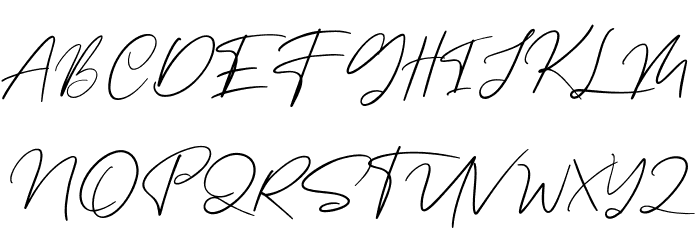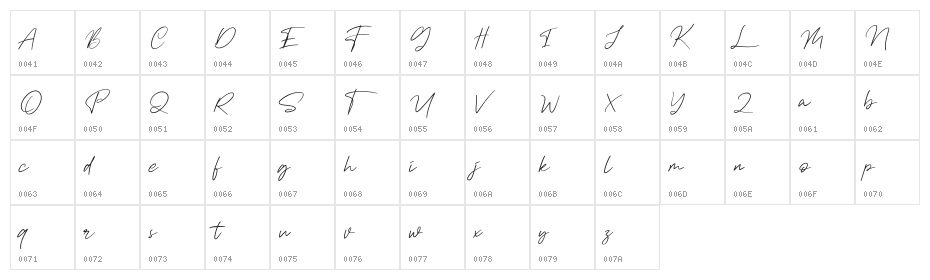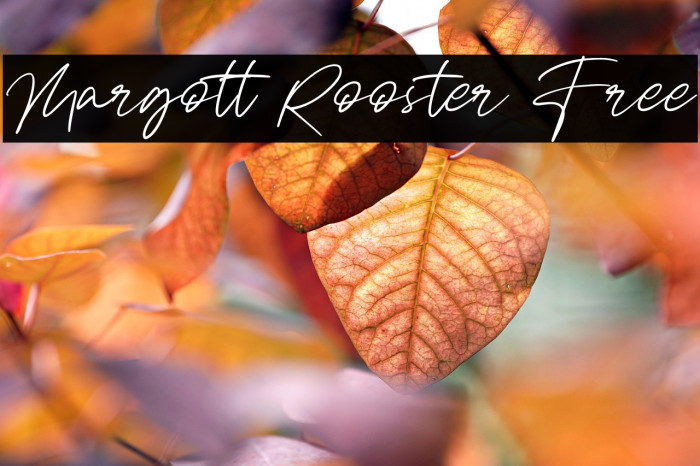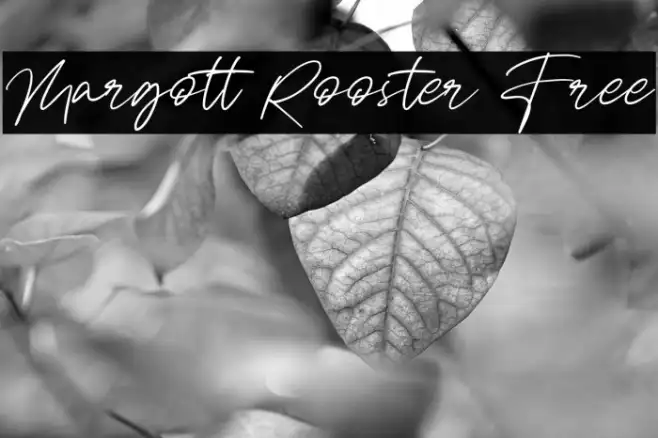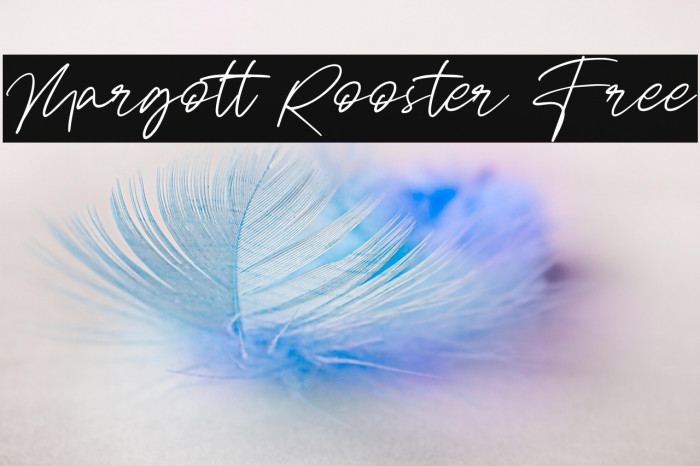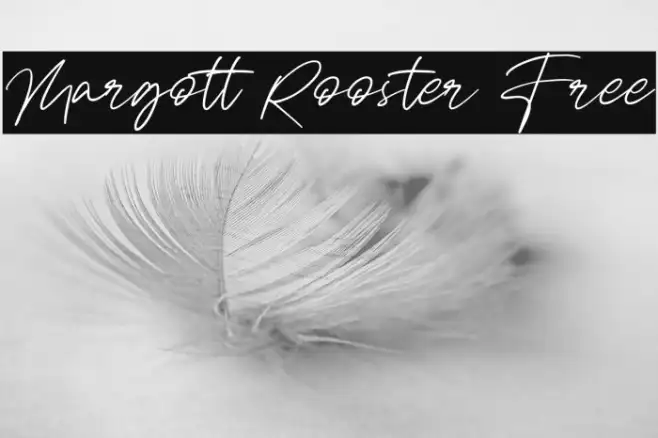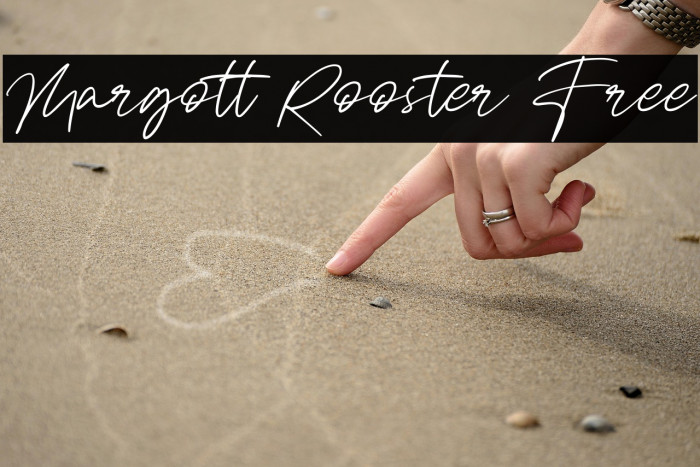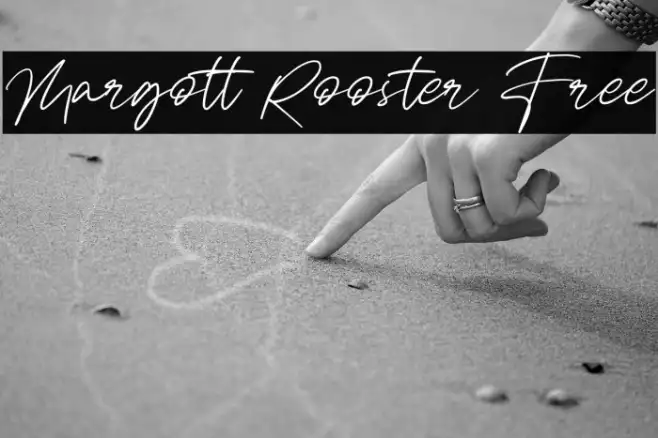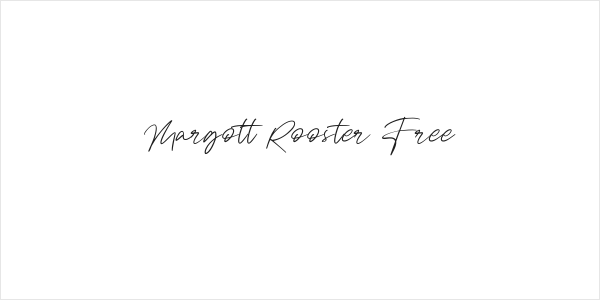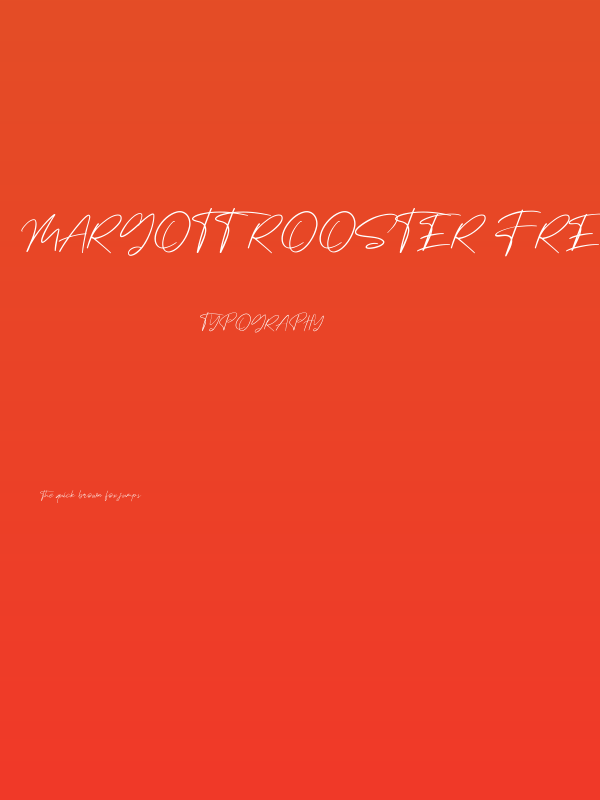
Margott Rooster Free Font
Margott Rooster Free Description
This font exudes a sophisticated and elegant script style, characterized by its flowing, cursive letterforms. The uppercase letters are tall and graceful, with sweeping lines that give a sense of movement and fluidity. The lowercase letters maintain this fluidity, with a slightly more compact form, yet they retain the same elegance. The strokes are thin and delicate, adding to the overall refined appearance. This font is ideal for projects that require a touch of class and elegance, such as wedding invitations, formal event branding, or luxury product packaging.
| Proposed Projects | Wedding invitations, formal event branding, luxury product packaging. |